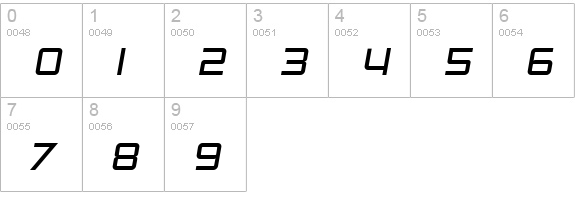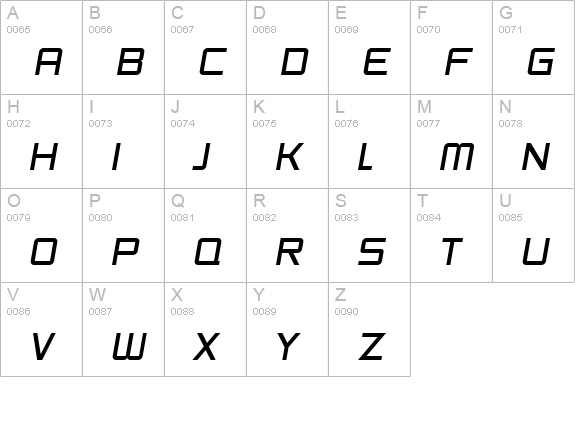
SF Fedora Titles Italic Font Details
SF Fedora Titles Italic is a distinctive, italic variant in the SF typeface family \xE2\x80\x94 well suited to design and typography projects.
SF Fedora Titles Italic font is a sleek and modern typeface perfect for adding a touch of sophistication to your designs. With its stylish slanted style, this font exudes elegance and professionalism. Whether you are working on a logo, branding, or editorial design, SF Fedora Titles Italic font is sure to make your text stand out. The best part? This font is available for free download at FontsMarket.com. So, you can easily add this versatile typeface to your collection without any cost. Don't miss out on the opportunity to elevate your designs with SF Fedora Titles Italic font. Download it today and start creating stunning visuals that leave a lasting impression.